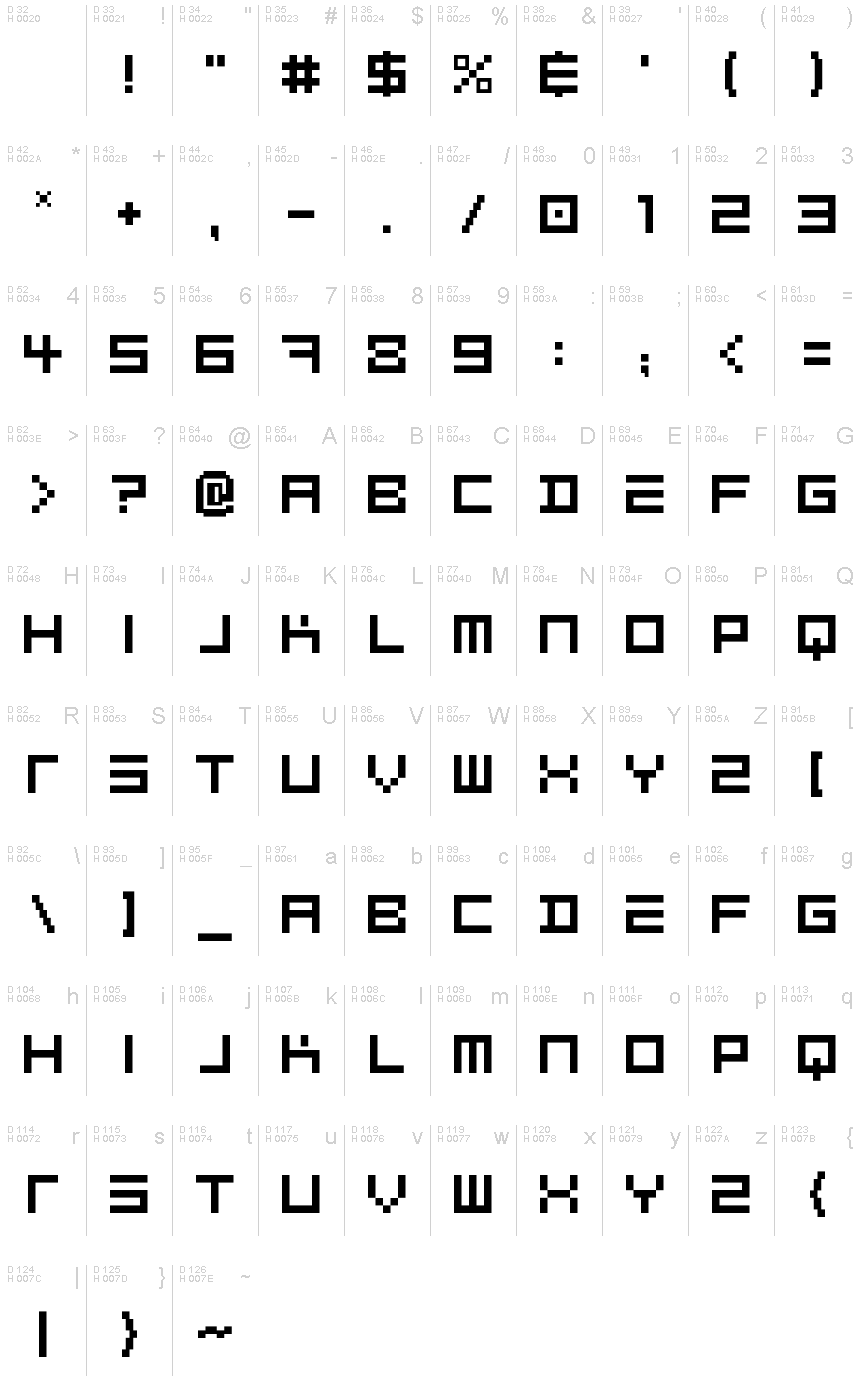
ALUMINECRE
Aluminecre, a creation by Fred Cre, is a font that exudes a futuristic vibe with its techno style. Its expanded letterforms make a bold statement, capturing attention with their commanding presence. The clean lines and geometric precision contribute to its sleek aesthetic, giving it an air of modern sophistication.
This font's striking appearance makes it ideal for projects that require a touch of innovation and contemporary flair. From tech startups to event posters for electronic music festivals, Aluminecre is perfectly suited for any design that aims to stand out in the digital age. Its expansive character set ensures versatility across various creative applications, making it an asset for designers looking to inject a sense of the cutting-edge into their work.